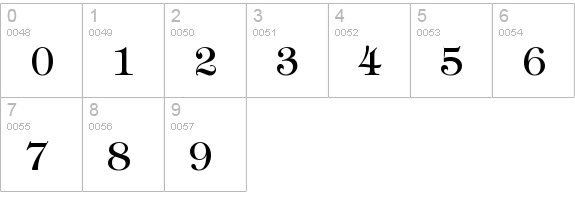
Timber-Regular is the standard, neutral variant in the Timber typeface family \xE2\x80\x94 well suited to general body text, paragraphs, and standard typographic work.
Timber-Regular is a versatile and modern font that exudes a sense of strength and stability. Its clean lines and balanced proportions make it perfect for a wide range of design projects, from branding to editorial design. The classic yet contemporary look of Timber-Regular ensures that it will stand the test of time and remain a timeless choice for any creative endeavor. The best part about Timber-Regular is that it is completely free to download at FontsMarket.com. This means that you can start using this high-quality font in your projects without any additional cost. Whether you are a graphic designer, web developer, or just someone looking to add a touch of sophistication to your creations, Timber-Regular is the perfect choice. Download it today and see the difference it can make in your designs.